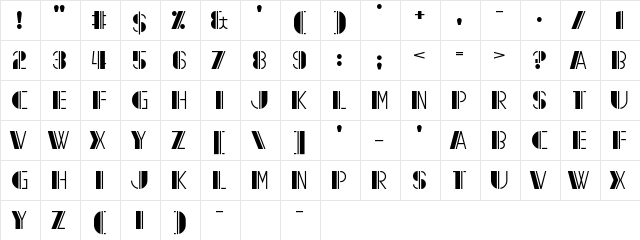
Reach the End Regular
| Designer | NAL |
Design Context for Reach the End Typeface
Reach the End is a composed and adaptable typeface that performs quietly and consistently across a wide range of design contexts.